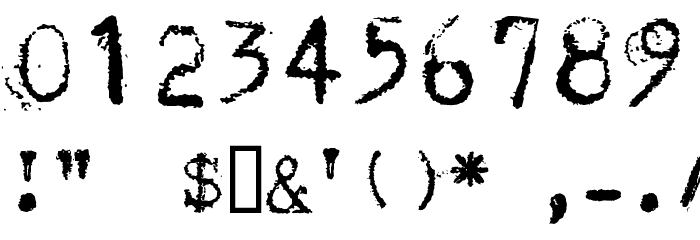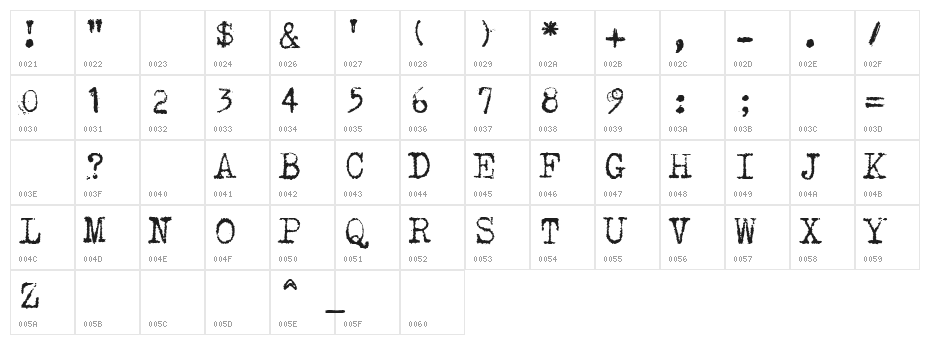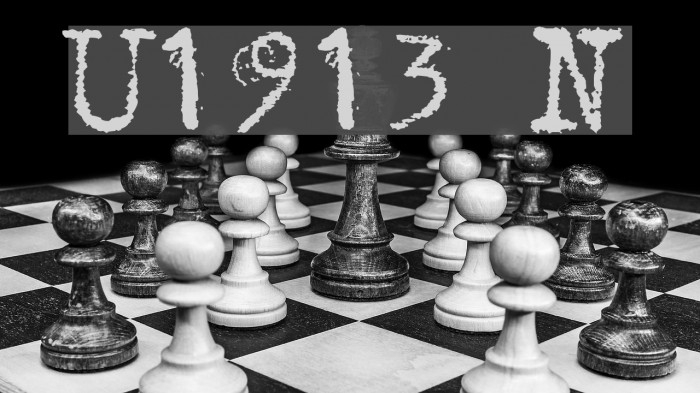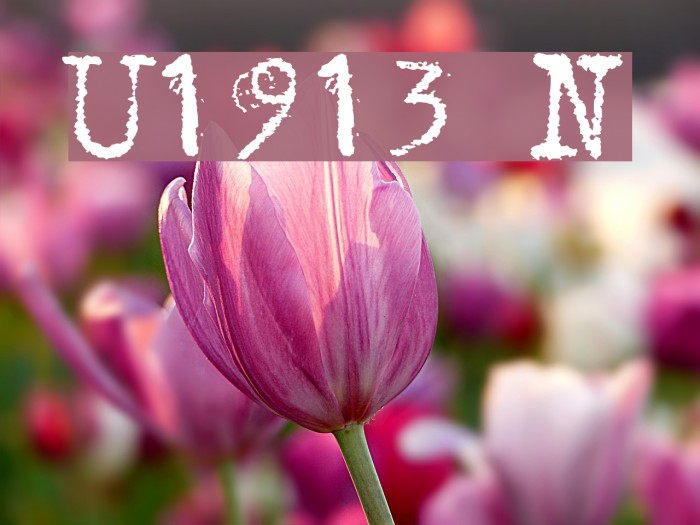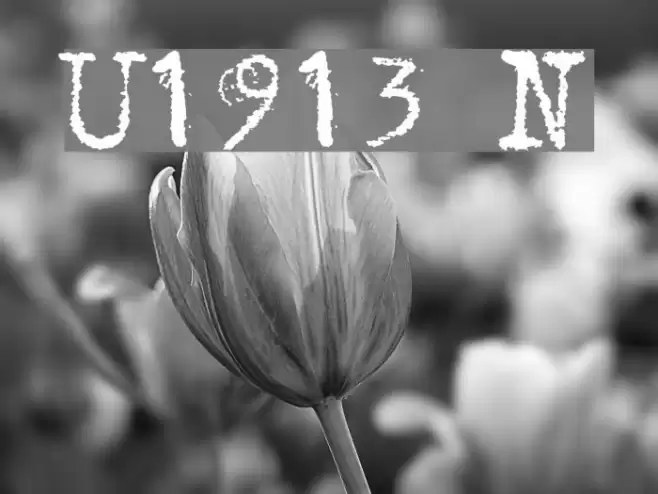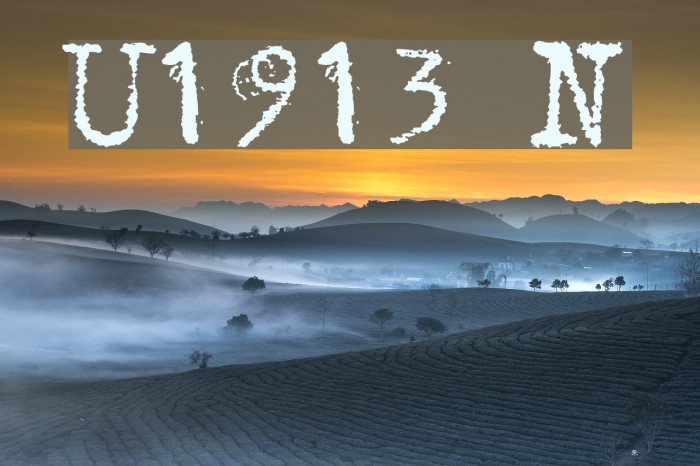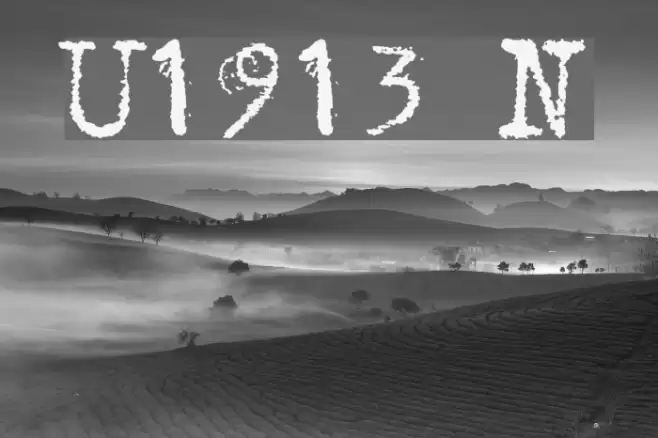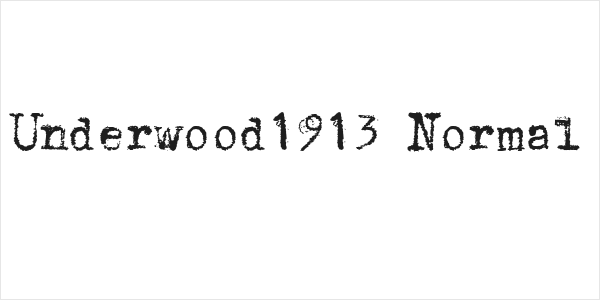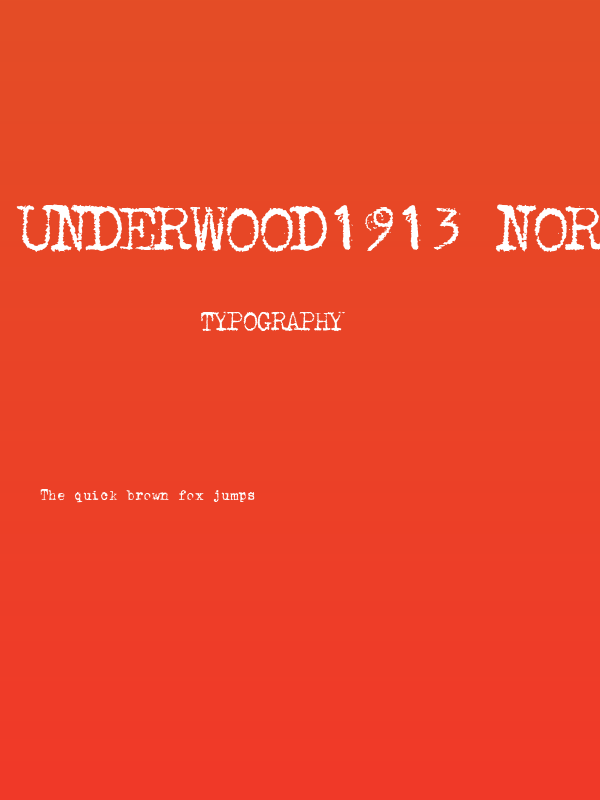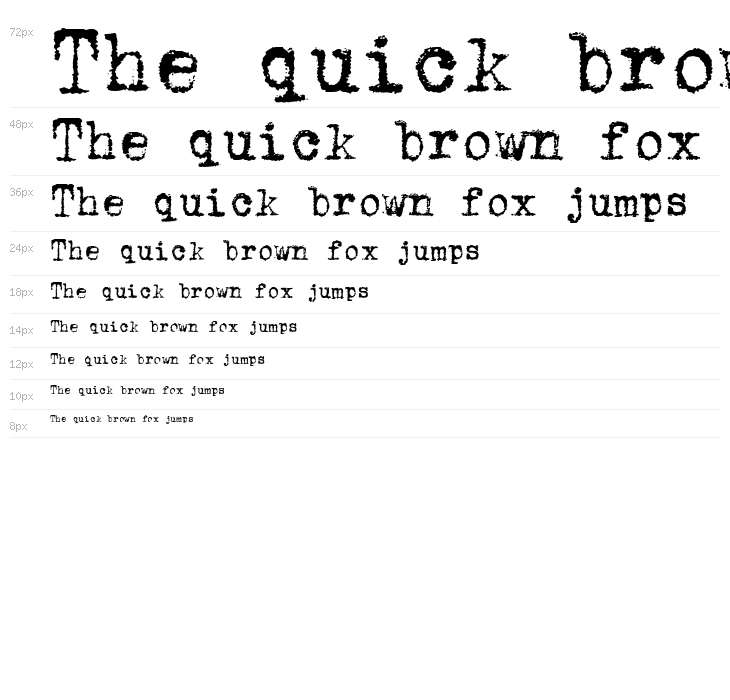
Underwood1913 Normal Font
Underwood1913 Normal Description
This typeface exudes a vintage, typewriter-inspired aesthetic with a distressed, textured appearance. Each character is imbued with a sense of history, featuring irregular edges and a slightly worn look that adds to its charm. The uppercase and lowercase letters maintain a consistent style, while the numerals and special characters complement the overall design. The font's unique texture gives it a tactile quality, reminiscent of old printed documents. Its bold presence and distinct character make it ideal for projects that require a touch of nostalgia or a retro feel.
| Proposed Projects | Ideal for vintage-themed designs, retro posters, book covers, and branding that requires a nostalgic touch. |